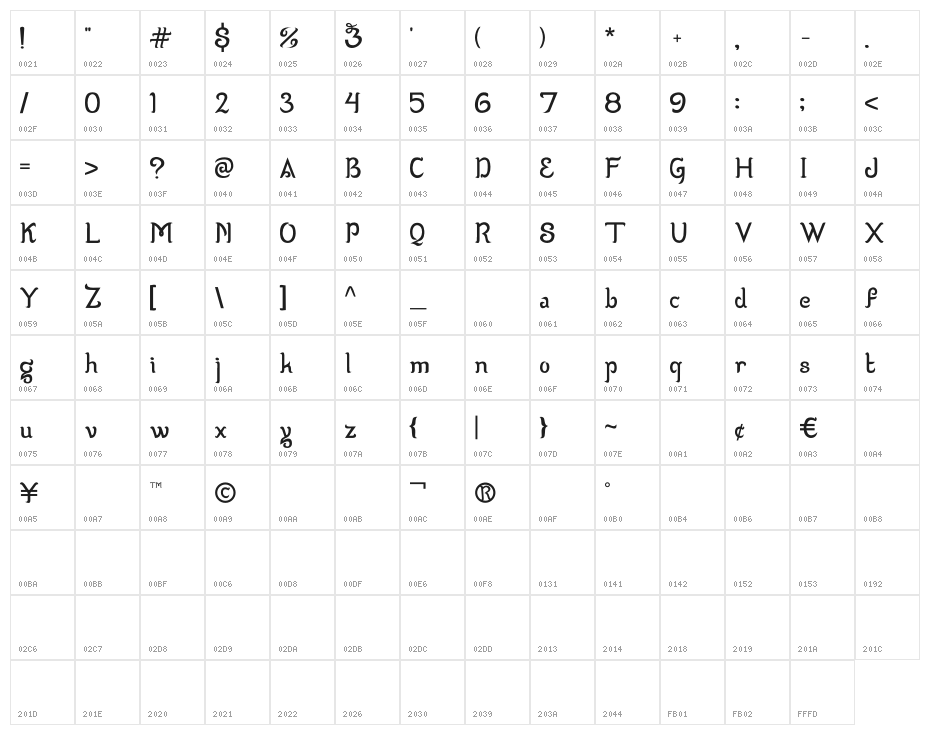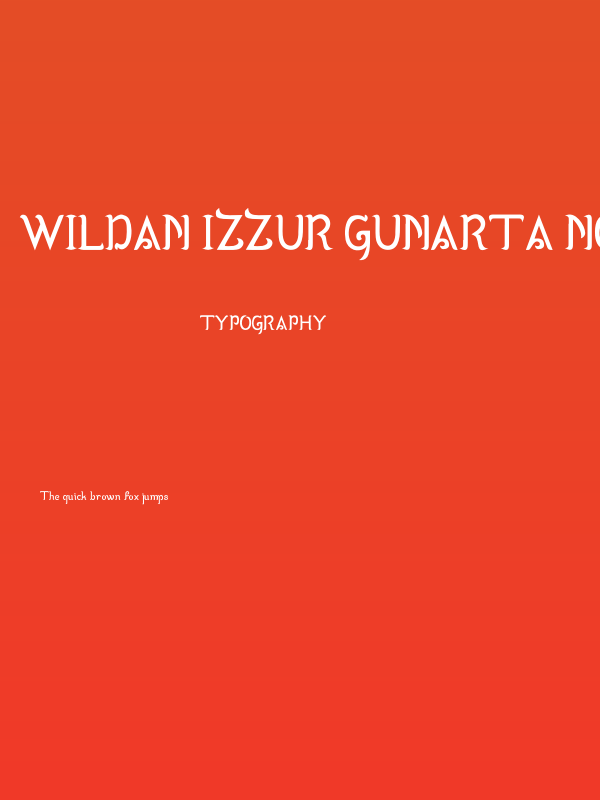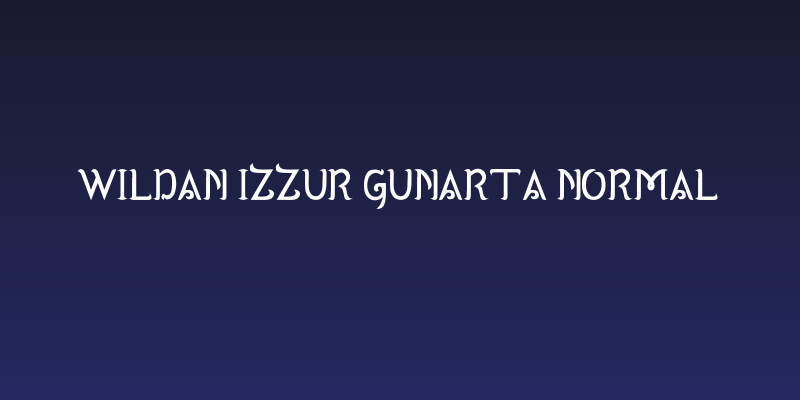
Wildan Izzur Gunarta Normal Font
Wildan Izzur Gunarta Normal Description
This font features a unique blend of classic and decorative elements, characterized by its bold and slightly whimsical design. The uppercase letters have a distinct flair with curved and pointed serifs, giving them an elegant yet playful appearance. The lowercase letters maintain a similar style, with some characters exhibiting a slight flourish that adds to the overall charm. Numbers are bold and consistent with the letterforms, ensuring readability. Special characters are designed with creativity, incorporating the same decorative style seen throughout the font. The overall aesthetic is both eye-catching and versatile, making it suitable for a variety of design projects.